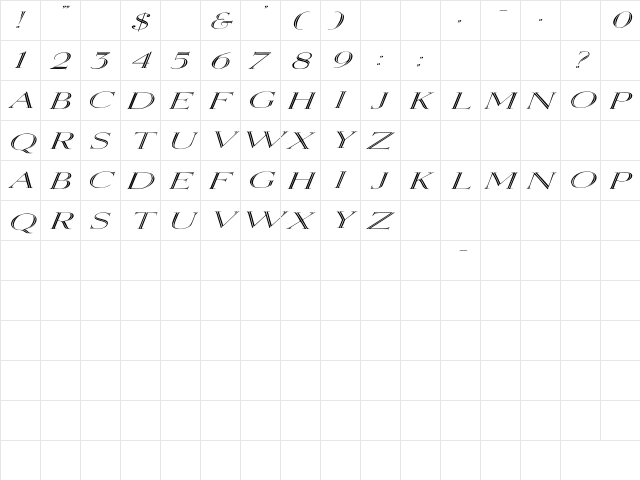
Elizabeth Ex Italic Italic
Design Context for Elizabeth Ex Italic Typeface
Elizabeth Ex Italic takes a measured approach to typography — its balanced proportions and neutral character make it a reliable workhorse for both digital and print work. The dynamic lean of this cut emphasises speed and emphasis in any layout.
Pro Tip: Use Elizabeth Ex Italic for emphasis, pull quotes, and subheadings where its slanted energy can add rhythm to the layout.